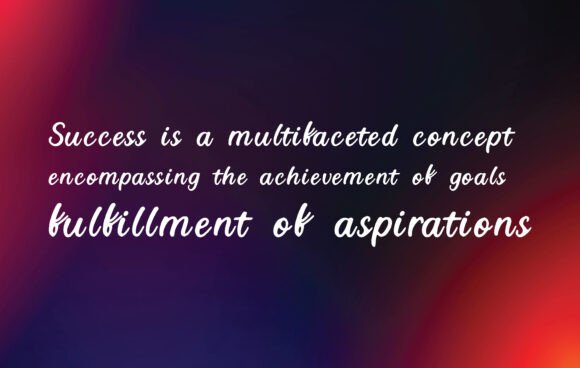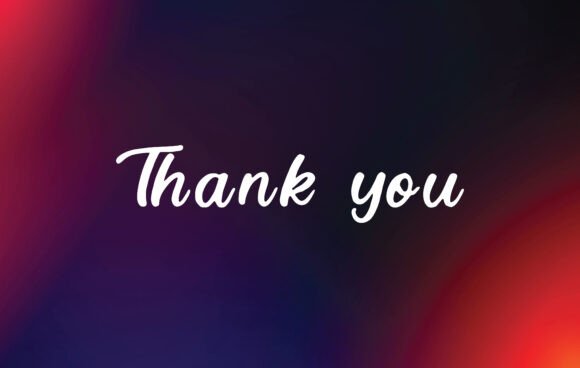
Bear Font: Elevate Your Creative Projects with this Lovely Handwritten Font
Are you a designer, crafty person, or someone who loves to create unique and eye-catching content? Look no further! Introducing Bear Font, a beautiful and lovely handwritten font that has the potential to take your creative ideas to the highest level. In this article, we’ll dive into the features and benefits of Bear Font, and explore how it can be the best choice for creating stunning logos, branding, and quotes.
What is Bear Font?
Bear Font is a carefully crafted handwritten font that exudes warmth, elegance, and sophistication. Its unique and flowing script makes it perfect for a wide range of creative projects, from logos and branding to quotes and social media graphics. The font’s gentle and friendly appearance is sure to capture the attention of your audience and leave a lasting impression.
Key Features of Bear Font
- Handwritten Script: Bear Font boasts a beautiful handwritten script that adds a personal touch to your designs.
- Elegant and Sophisticated: The font’s flowing curves and lines create an elegant and sophisticated look that’s perfect for high-end branding and designs.
- Unique and Creative: Bear Font’s distinctive style sets it apart from other fonts, making it an excellent choice for designers and crafters looking to create something unique.
- Easy to Read: Despite its elegant appearance, Bear Font is easy to read, making it perfect for body text and quotes.
Benefits of Using Bear Font
So, why choose Bear Font for your creative projects? Here are just a few benefits of using this lovely handwritten font:
- Stand Out from the Crowd: With Bear Font, you can create designs that stand out from the crowd and grab the attention of your audience.
- Professional and Polished Look: The font’s elegant appearance gives your designs a professional and polished look that’s perfect for branding and marketing materials.
- Versatile: Bear Font can be used for a wide range of creative projects, from logos and branding to quotes and social media graphics.
Best Uses for Bear Font
Bear Font is a versatile font that can be used for a variety of creative projects. Here are some of the best uses for this lovely handwritten font:
- Logos and Branding: Bear Font is perfect for creating eye-catching logos and branding materials that make a lasting impression.
- Quotes and Social Media Graphics: The font’s elegant appearance makes it ideal for creating stunning quotes and social media graphics.
- Invitations and Stationery: Bear Font can be used to create beautiful invitations, stationery, and other paper goods.
- Web Design: The font’s clean and elegant appearance makes it perfect for web design, including headings, titles, and body text.
In conclusion, Bear Font is a lovely and beautiful handwritten font that’s perfect for designers, crafters, and anyone looking to create unique and eye-catching content. Its elegant appearance, versatility, and ease of use make it an excellent choice for a wide range of creative projects. Whether you’re looking to create stunning logos, branding, and quotes, or simply want to add a personal touch to your designs, Bear Font is the perfect choice.